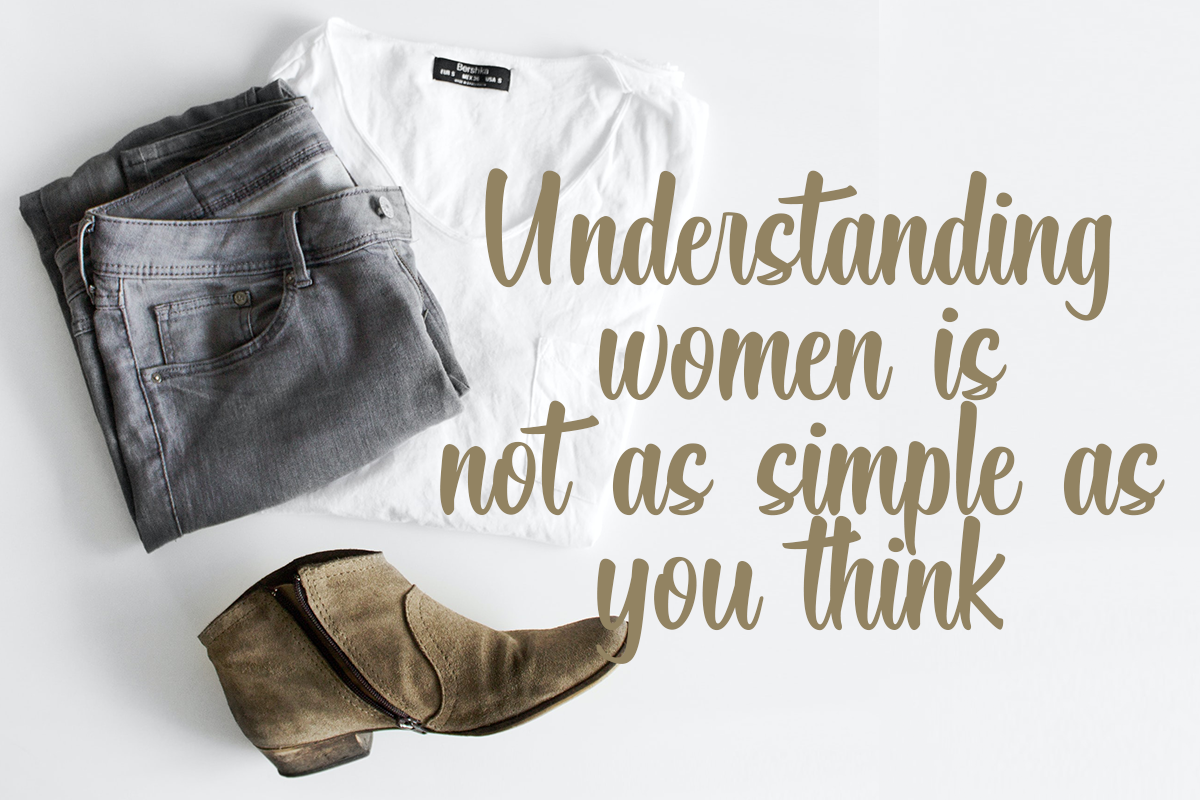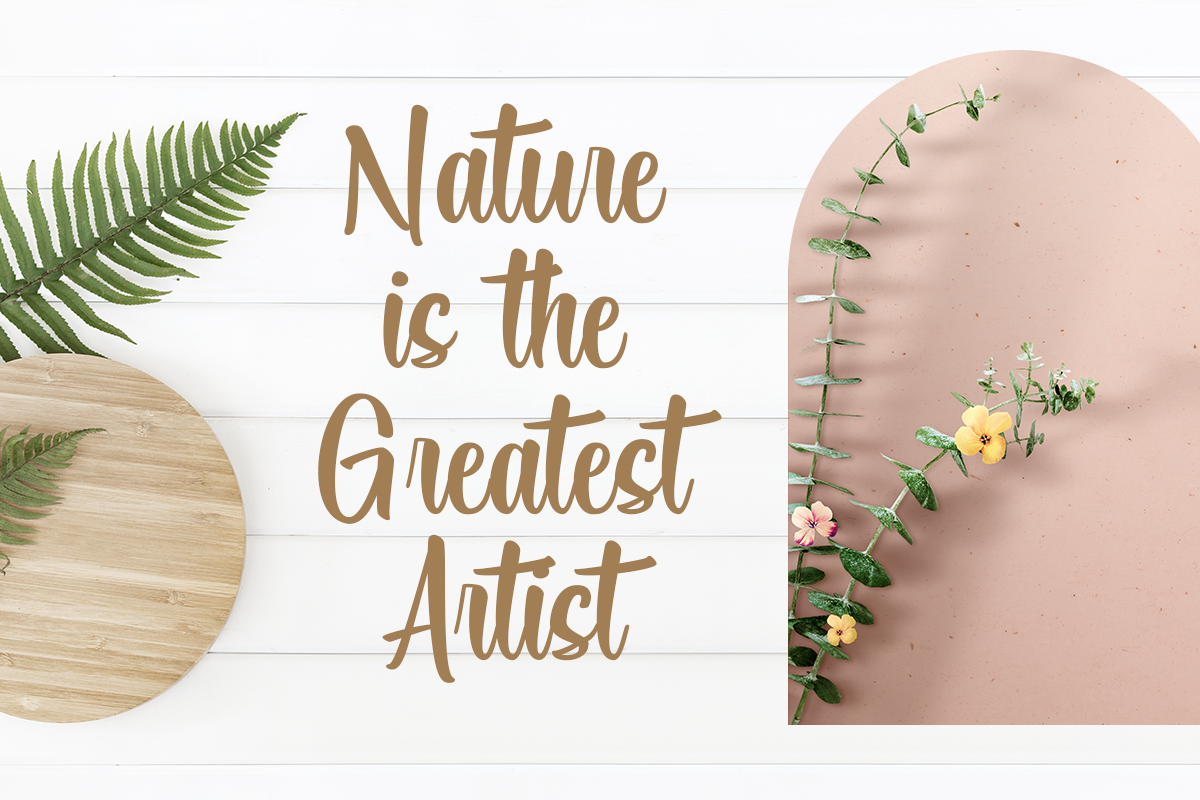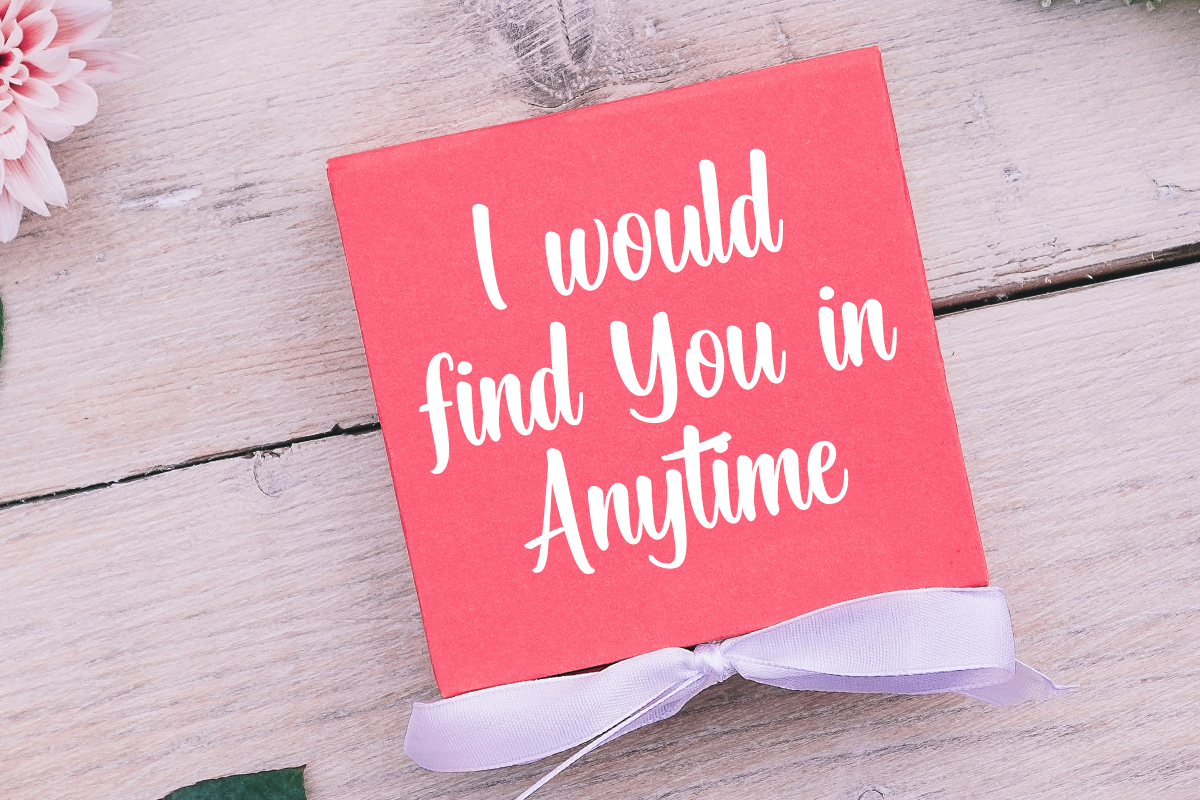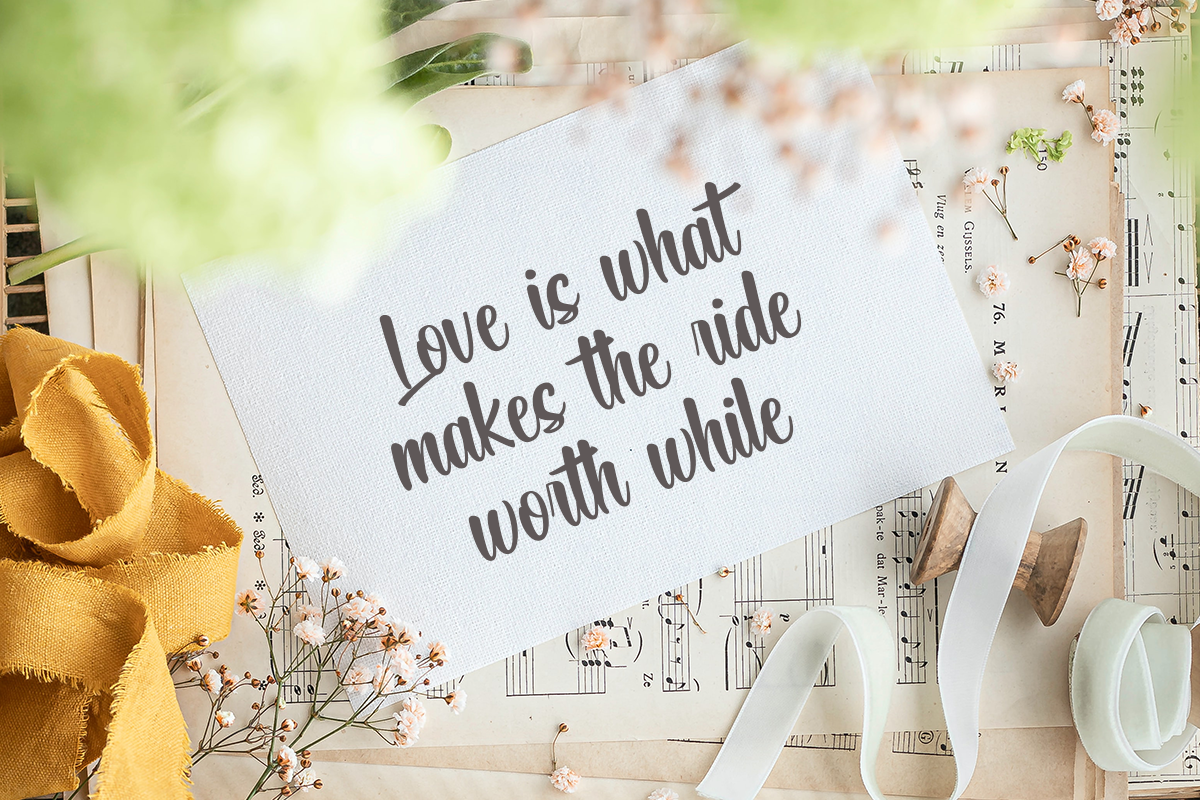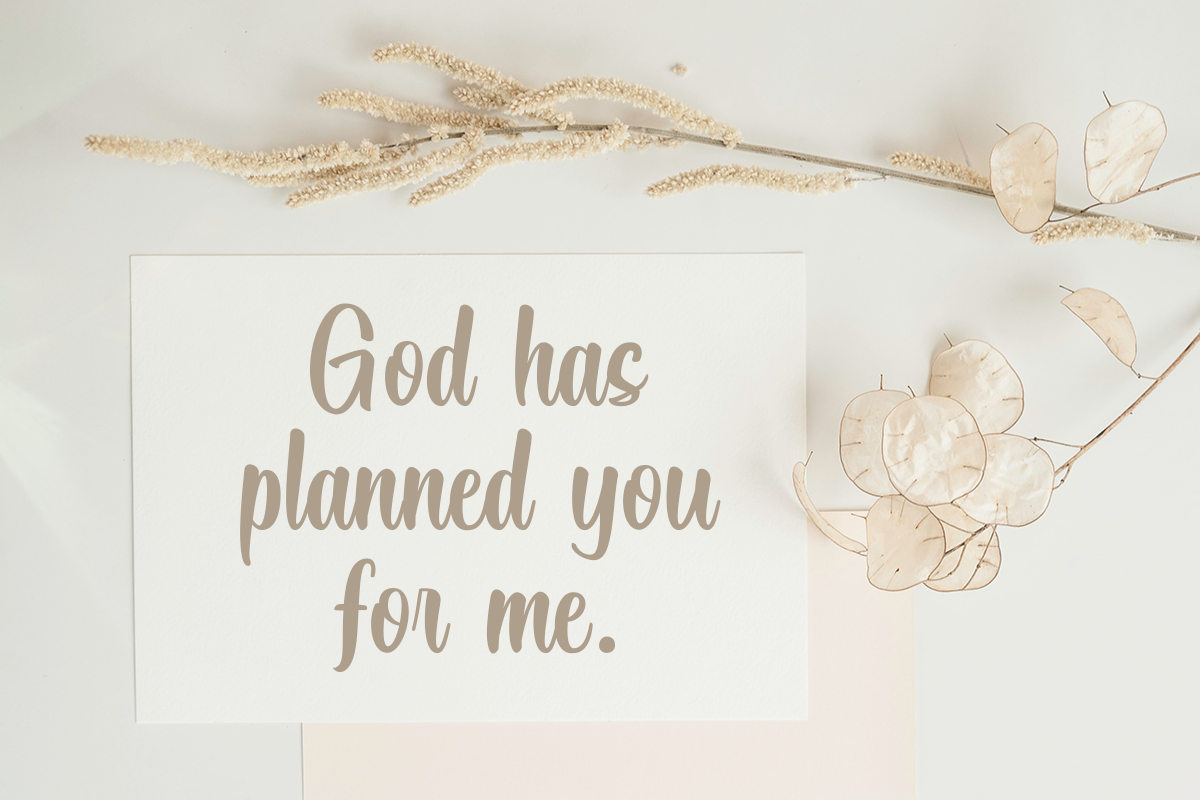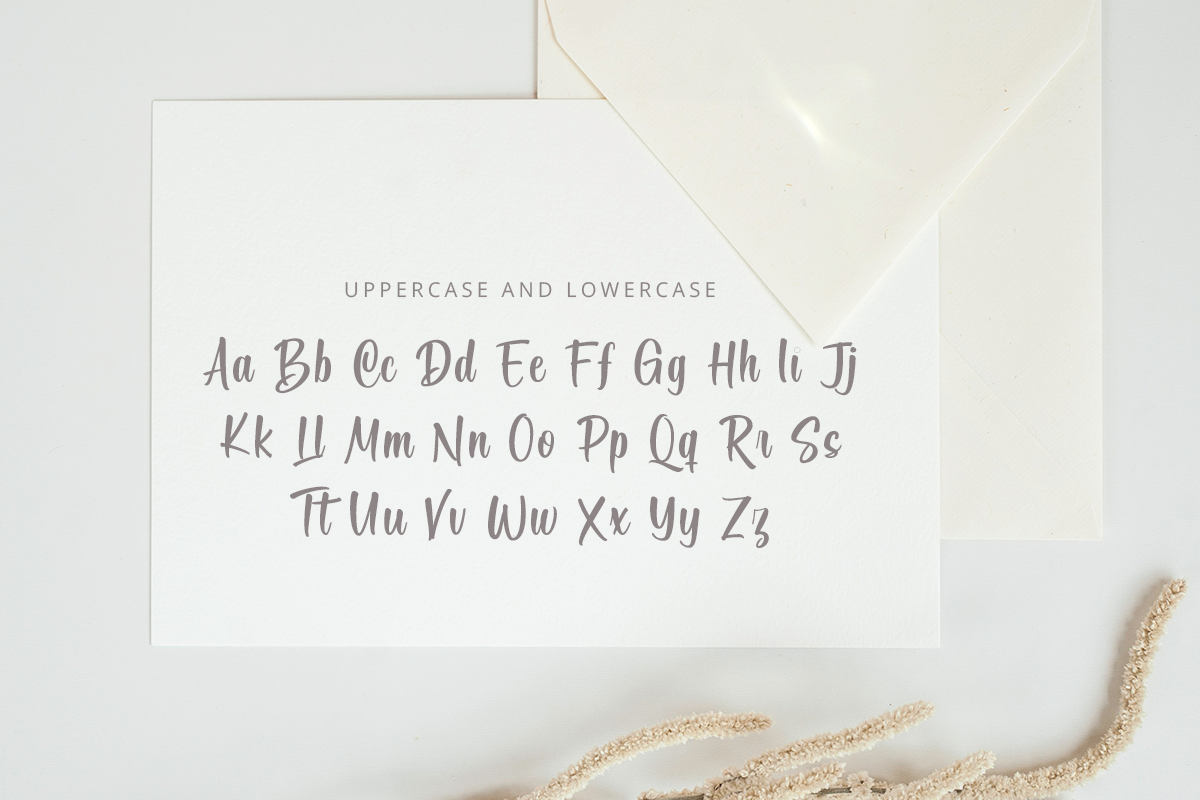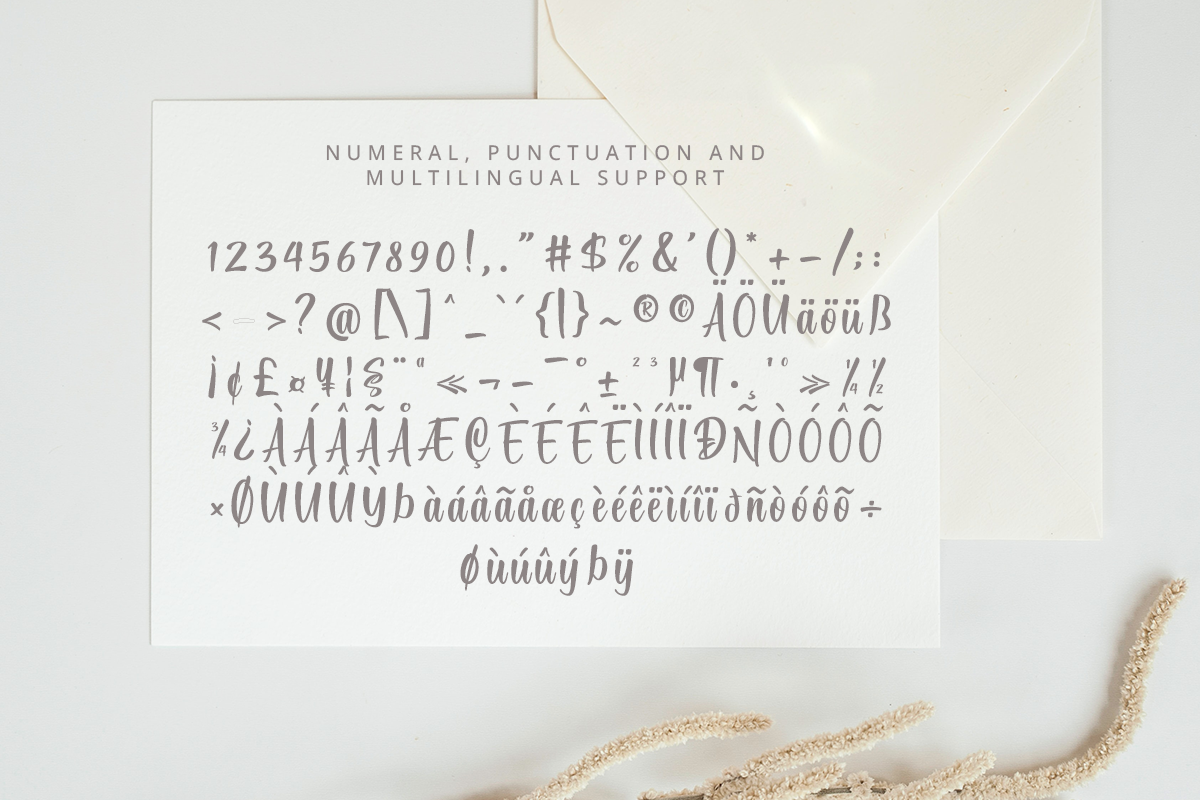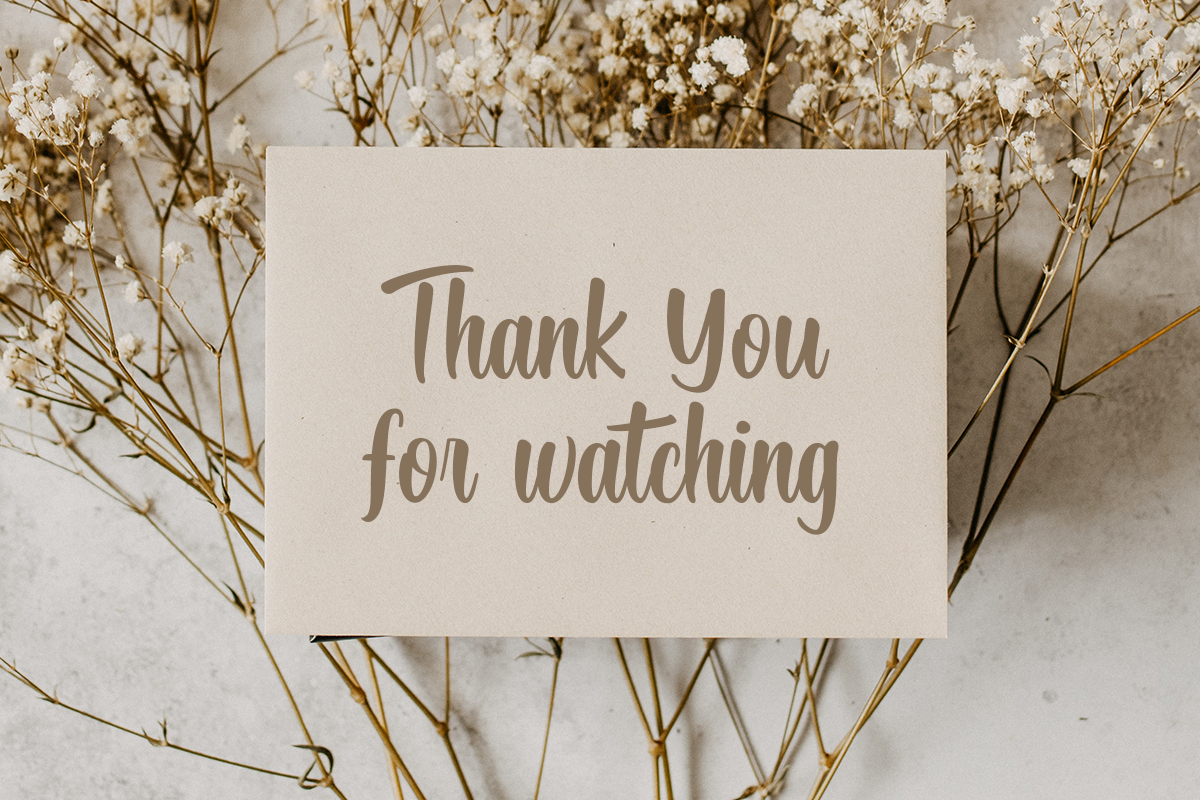
Get The Love Classy Handwritten Font Script & Signature Font provides a wide selection of font types that have interesting characteristics. This time the Get The Love Classy Handwritten Font is one of the best choices among other fonts. This font is made to resemble handwriting with the help of a brush in its manufacture. Not only that, but it is also in the form of uncovered strokes giving an aesthetic and modern impression. With unique characteristics, Get The Love Classy Handwritten Font is still relatively easy to distinguish between letters. Seeing the explanation, the Get The Love Classy Handwritten Font is legible. This font is suitable for printing in both large and small sizes. It will be obvious, as long as it is not filled with excessive ornamentation. When Get The Love Classy Handwritten Font stands alone, it already has artistic value and looks attractive. Get The Love Classy Handwritten Font is a typeface that is well-suited for writing on modern equipment. Muramasa Classy Handwritten Font is blendable on the board which adds artistic value and the board's appeal. Get The Love Classy Handwritten Font can also write on book covers and stickers.